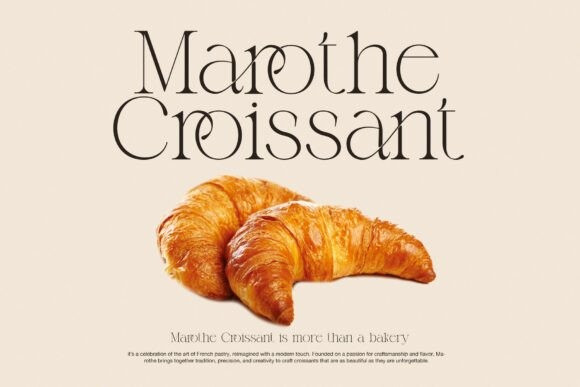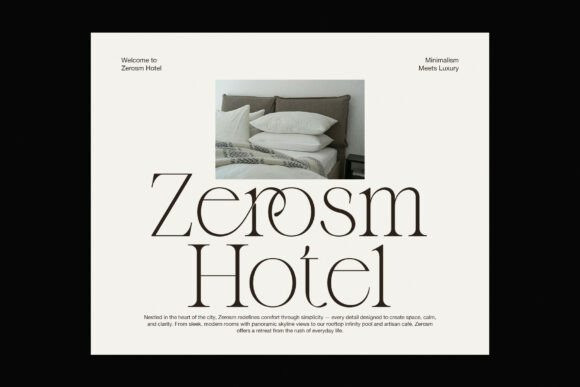
Cinema Theater Font
Cinema Theater Font is an elegant serif font that blends cinematic grace with modern sophistication. Every curve feels intentional, and every detail adds beauty. With smooth transitions between thick and thin strokes, this serif font creates a luxurious and timeless impression.
Because of its refined style, designers often use Cinema Theater to elevate branding and editorial design. It combines classic elegance with a modern touch, making every layout feel more polished. Moreover, the graceful ligatures and balanced proportions make text flow naturally, enhancing both readability and charm.